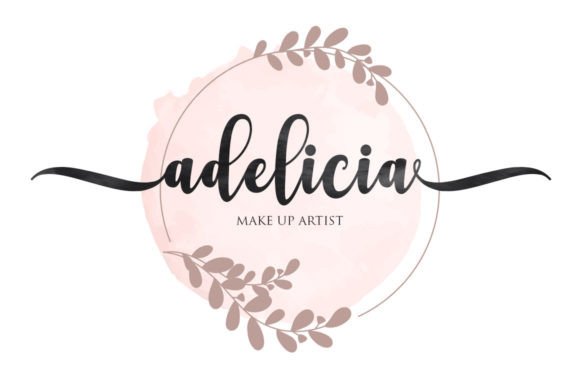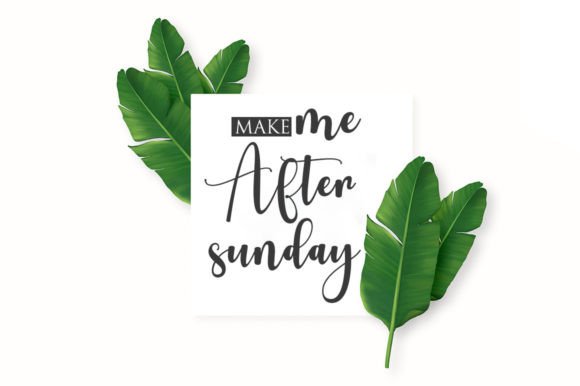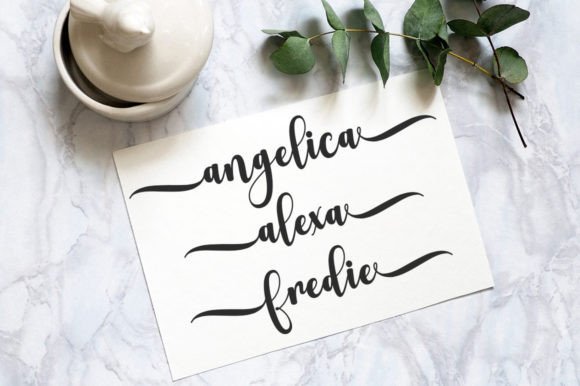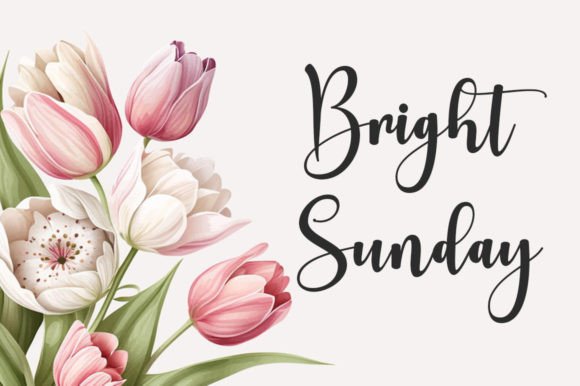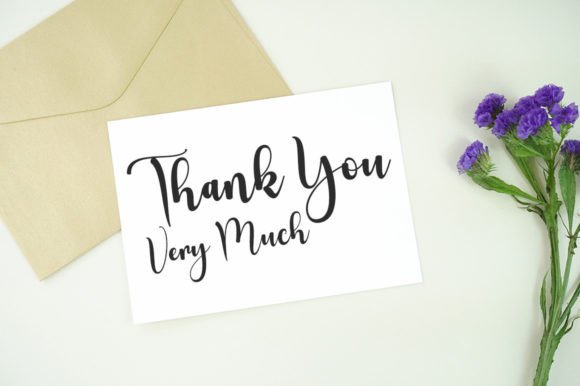
Introducing Friendzone Font: The Sweet and Adorable Handwritten Font for Your Creative Projects
Are you tired of using the same old fonts for your creative projects? Do you want to add a personal touch to your designs and make them stand out? Look no further than Friendzone Font, a sweet and adorable handwritten font that’s perfect for a wide range of applications. In this article, we’ll take a closer look at Friendzone Font, its features, and how you can use it to elevate your designs.
What is Friendzone Font?
Friendzone Font is a beautiful, handwritten font that’s designed to add a neat and natural feel to your projects. Its sweet and adorable style makes it perfect for designs that require a personal touch, such as greeting cards, invitations, and social media graphics. The font features a varying baseline, smooth lines, gorgeous glyphs, and stunning alternates, making it a versatile choice for any design project.
Key Features of Friendzone Font
- Varying Baseline: The font features a varying baseline, which gives it a natural and handwritten feel.
- Smooth Lines: The smooth lines of Friendzone Font make it perfect for designs that require a clean and elegant look.
- Gorgeous Glyphs: The font comes with a range of gorgeous glyphs and stunning alternates, making it easy to add visual interest to your designs.
Applications of Friendzone Font
Friendzone Font is a versatile font that can be used for a wide range of applications, including:
- Greeting Cards: Add a personal touch to your greeting cards with Friendzone Font’s sweet and adorable style.
- Headlines: Use Friendzone Font to create eye-catching headlines for your blog posts, articles, and social media graphics.
- Social Media Graphics: Friendzone Font is perfect for creating social media graphics, such as Facebook posts, Instagram stories, and Twitter headers.
- Invitations: Use Friendzone Font to create beautiful and elegant invitations for weddings, birthday parties, and other special occasions.
Why Choose Friendzone Font?
There are many reasons why you should choose Friendzone Font for your next design project. Here are a few:
- Unique Style: Friendzone Font has a unique and adorable style that’s sure to make your designs stand out.
- Easy to Use: The font is easy to use and comes with a range of features that make it easy to customize your designs.
- Versatile: Friendzone Font can be used for a wide range of applications, making it a great addition to any designer’s toolkit.
Tips for Using Friendzone Font
Here are a few tips for using Friendzone Font in your designs:
- Experiment with Different Sizes: Friendzone Font looks great in a range of sizes, so don’t be afraid to experiment and find the perfect size for your design.
- Use with Other Fonts: Friendzone Font pairs well with other fonts, so try using it with a bold font to create visual interest.
- Customize Your Designs: Use the glyphs and swashes in Friendzone Font to customize your designs and add a personal touch.